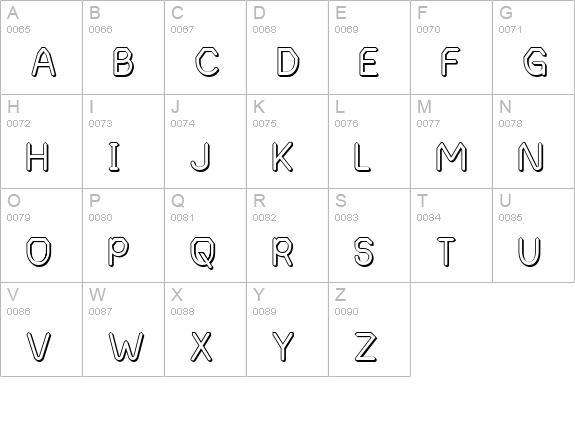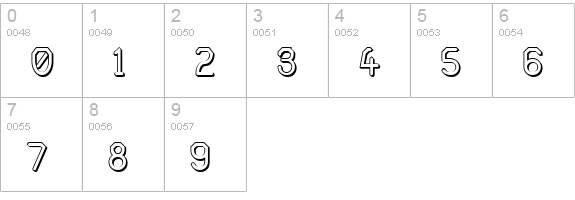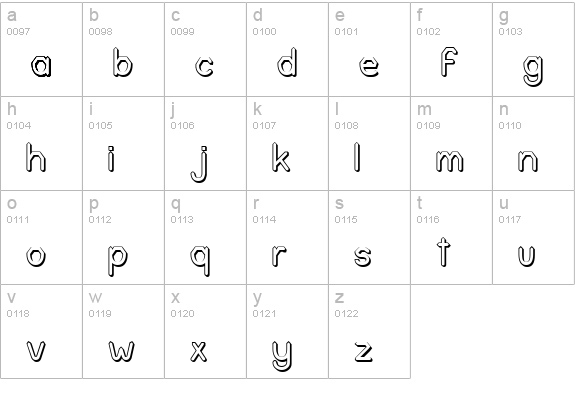
Alpha Romanie Outline G98 Font Details
Alpha Romanie Outline G98 font is a sleek and modern typeface that exudes elegance and sophistication. Its clean lines and geometric shapes make it perfect for a wide range of design projects, from branding to editorial design. This font is versatile and can be used for both headings and body text, adding a touch of sophistication to any project. One of the best things about Alpha Romanie Outline G98 font is that it is completely free to download. You can easily access this font at FontsMarket.com, where you can download it and start using it in your projects right away. Whether you are a designer looking for a stylish font to elevate your designs, or a business owner wanting to create a professional and polished brand image, Alpha Romanie Outline G98 font is the perfect choice. Download it today and see how it can take your designs to the next level.